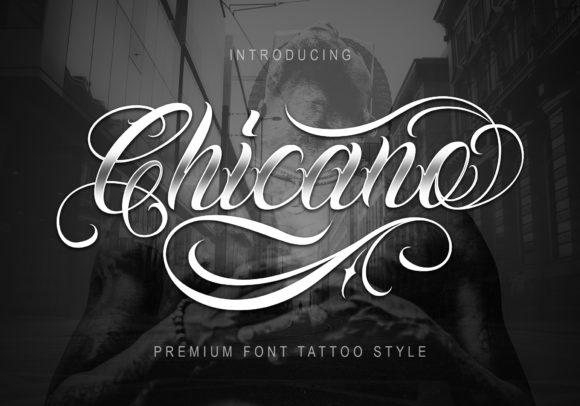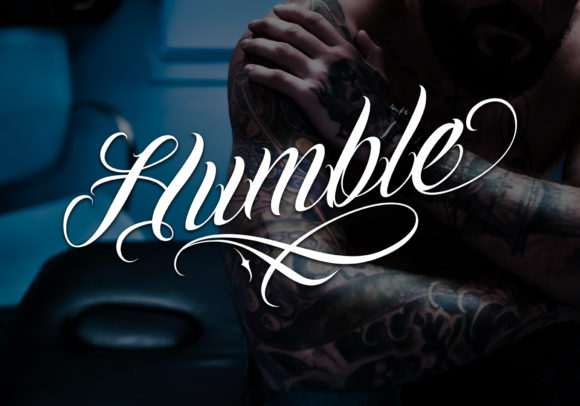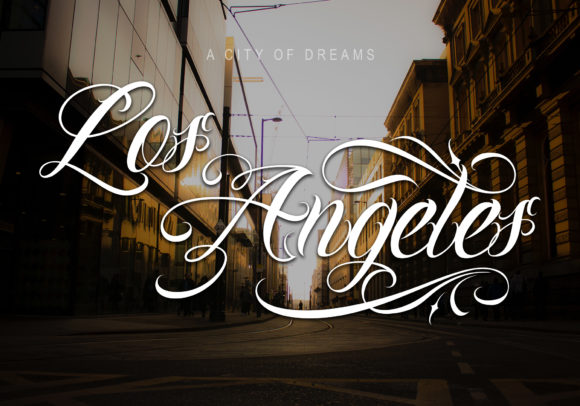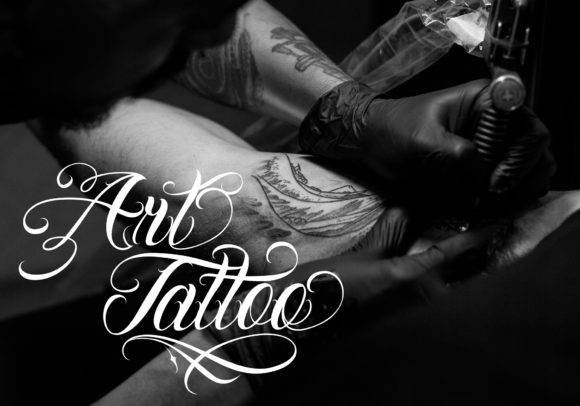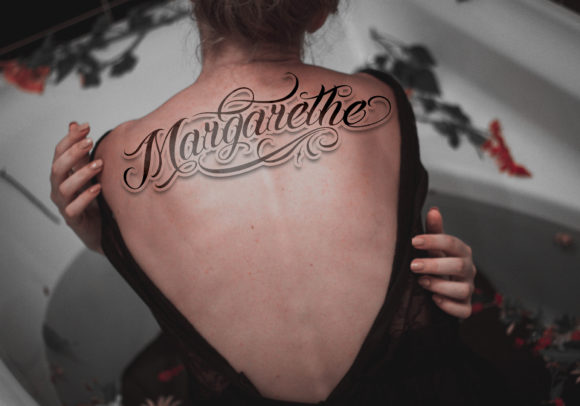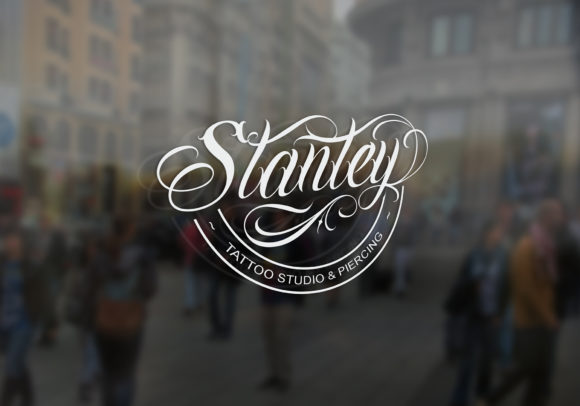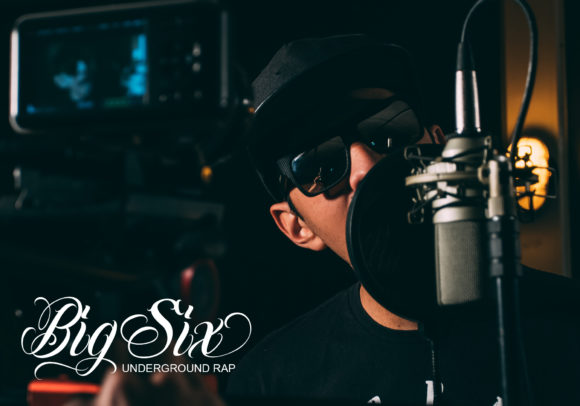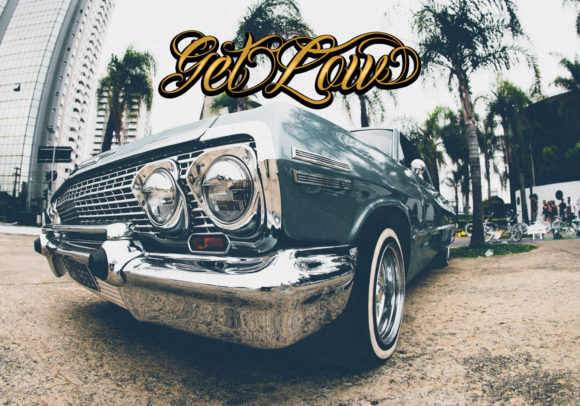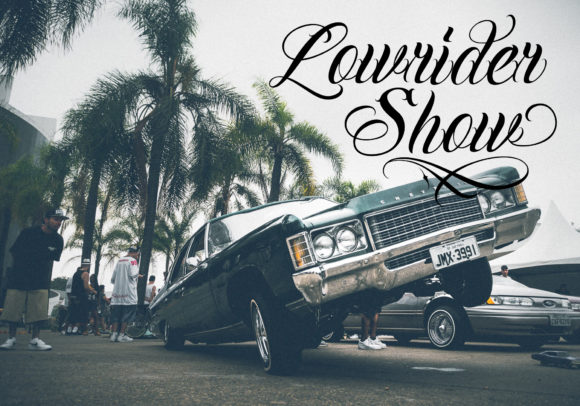
Chicano Font
About Chicano Font
Inspired by classic tattoos, Chicano is a unique and powerful handwritten font with a bold twist. It will turn any design project into a stand out.